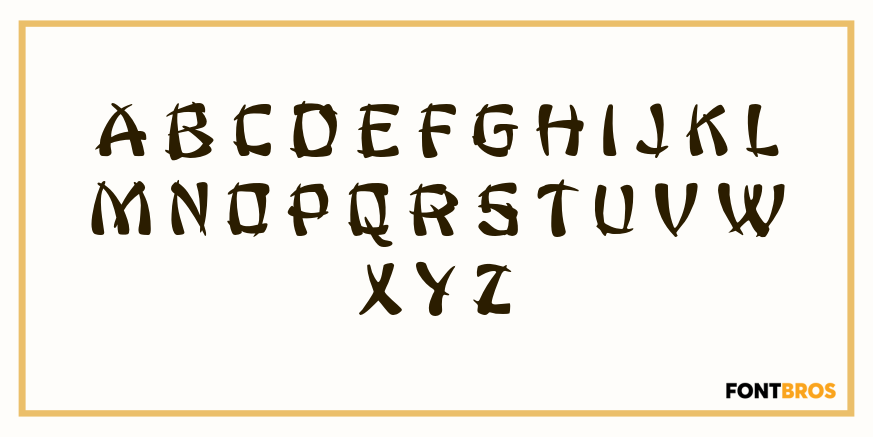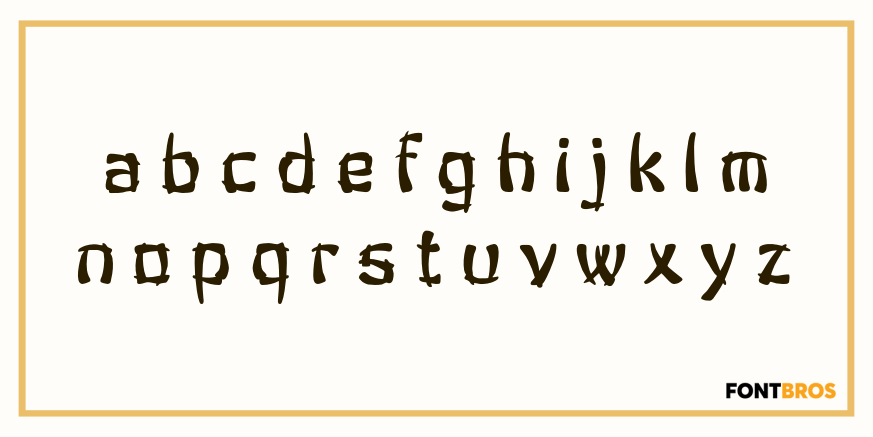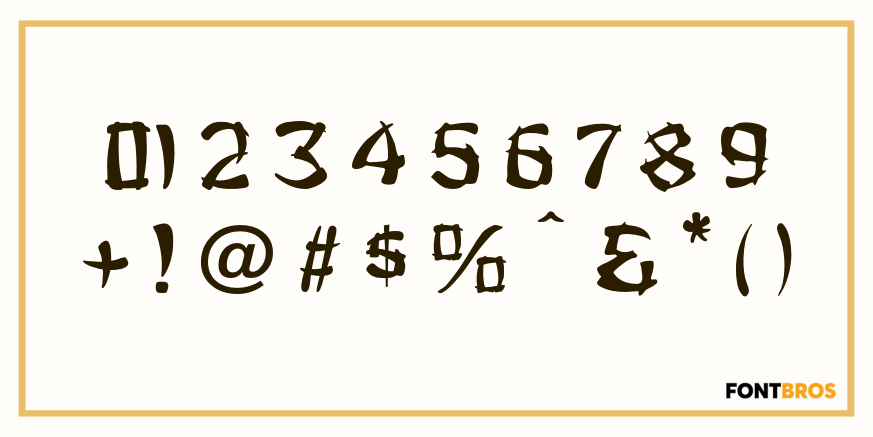
Fantan
Font Family by Solotype
From an early 20th century sign painter's copy book.
We gave it a softer treatment than many of the faux-Asian faces have.
We also added a lowercase, as is our wont.